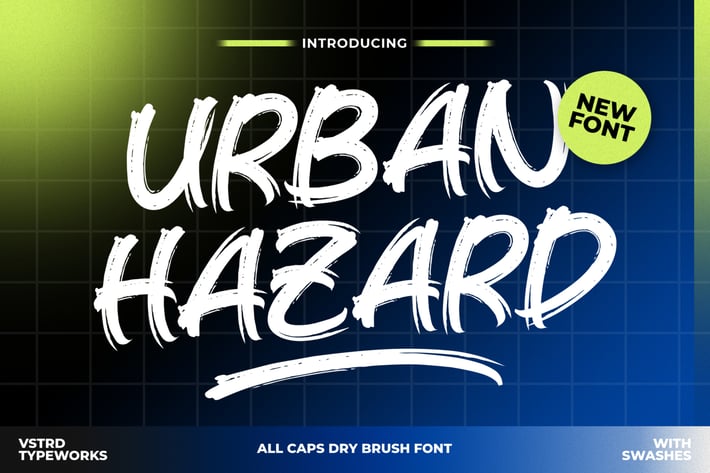
Urban Hazard - Brush Font
Bring energy and attitude to your designs with Urban Hazard, a powerful brush font crafted from natural, hand brush strokes. With its raw, and expressive strokes, this font is perfect for projects that demand a bold, rebellious edge.
Ideal for logos, Urban Themed Campaign, food & beverage branding, promotional campaigns, video titles, quotes, and eye-catching text overlays, Urban Hazard adds a handcrafted, urban feel to any design.
Key Features
- Perfect for high-impact branding and statement typography
- Adds an edgy, street-art-inspired vibe to your designs
Make a statement with Urban Hazard – where bold strokes meet fearless creativity!
- All Caps Uppercase & Lowercase
- Swash